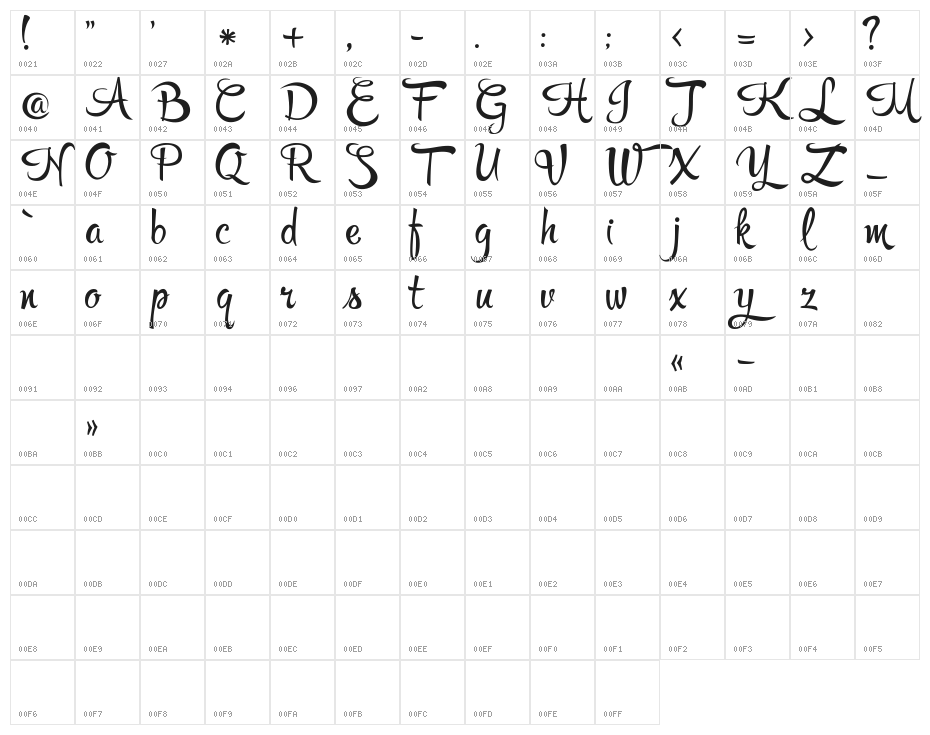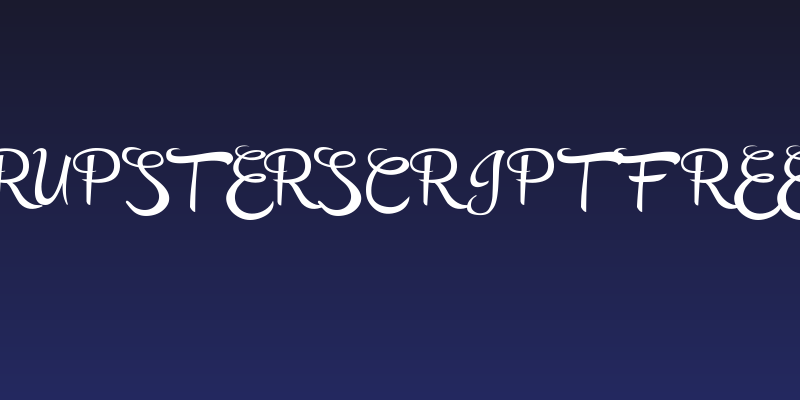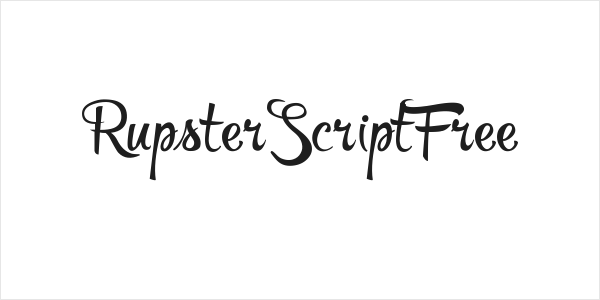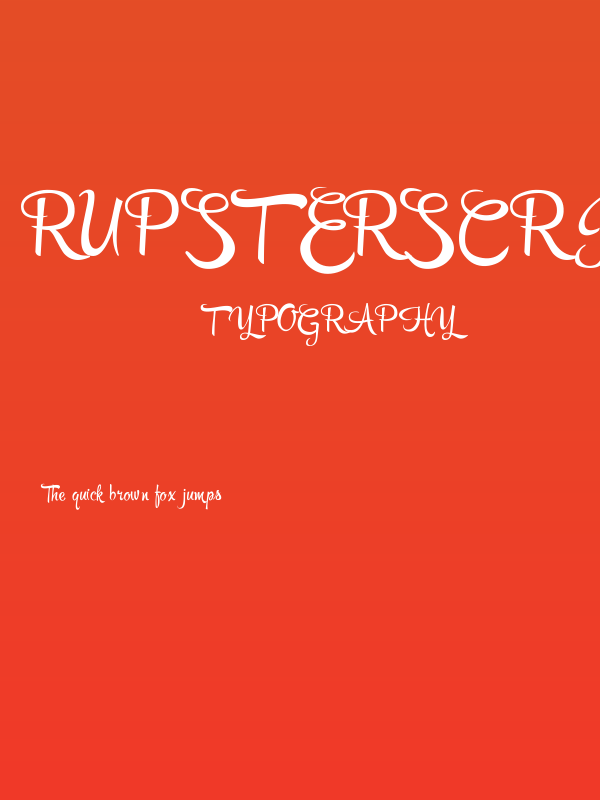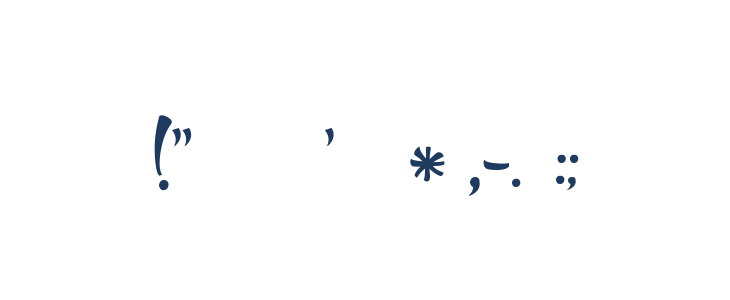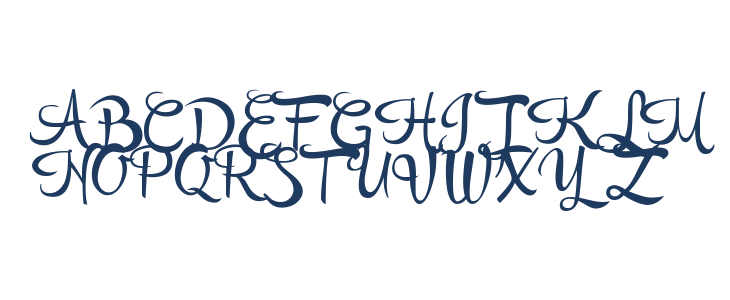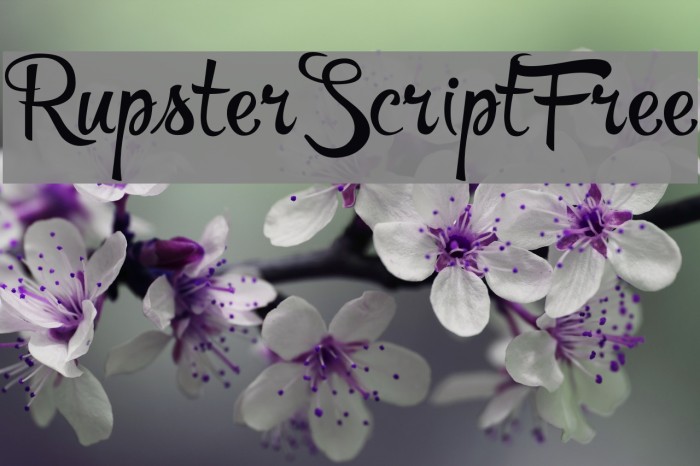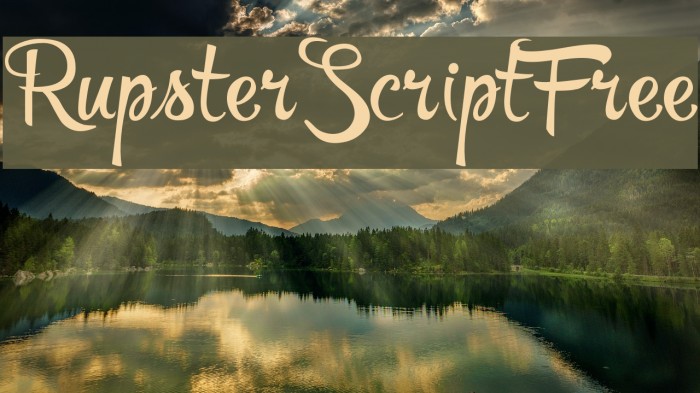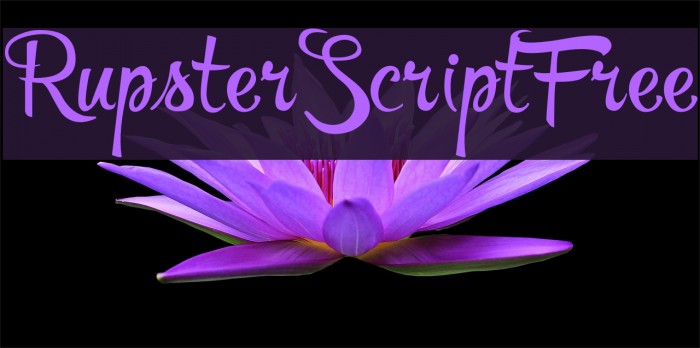
RupsterScriptFree Font
RupsterScriptFree Description
This font features a dynamic and flowing script style, characterized by its elegant, cursive letterforms. The uppercase letters exhibit a graceful, sweeping motion with decorative flourishes, while the lowercase letters maintain a consistent, fluid connection that enhances readability. The font's overall appearance is both sophisticated and playful, making it suitable for a variety of creative applications. The numerals and special characters are designed to complement the script style, ensuring a cohesive look across all text elements. This font's unique charm and versatility make it an excellent choice for projects that require a touch of elegance and personality.
RUPSTERSCRIPTFREE UPPERCASE
RUPSTERSCRIPTFREE LOWERCASE
RUPSTERSCRIPTFREE OTHER CHARS